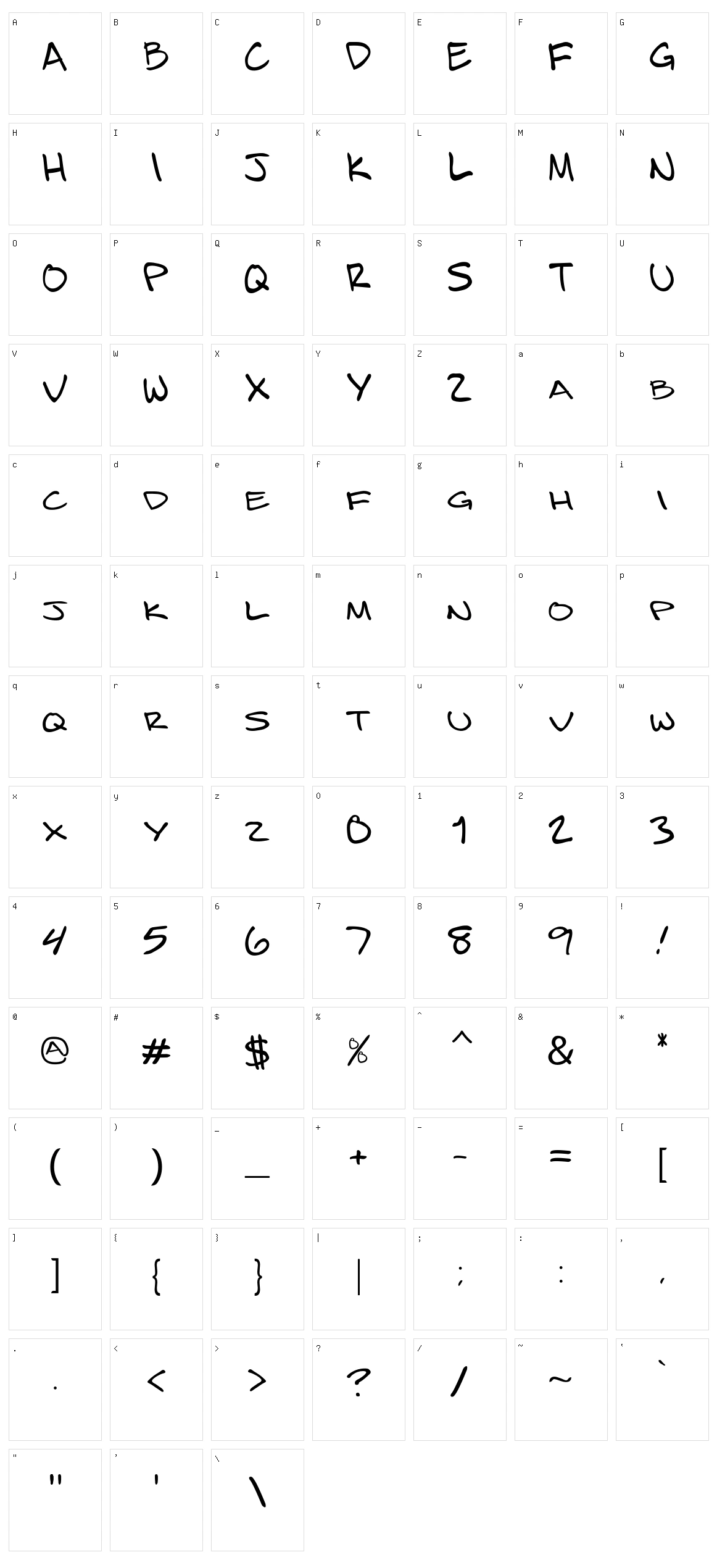
The free font Bizzack is carefully designed by Nick Bizzack, showcasing a thoughtful balance of creativity and usability and falls under the Script font style. When you download the ZIP file, it contains only 25.5 KB of font files, making it lightweight and quick to download. Please review the license details below to understand permitted usage and distribution rights. If license information is not available, we recommend using this font for personal projects only or contacting the author directly for commercial usage permissions.